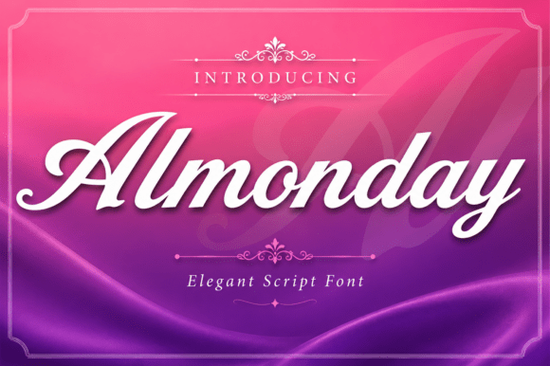
If you're looking for a script font that feels both timeless and modern, Almonday Font is a standout choice. It blends the graceful flow of traditional calligraphy with the clean energy of contemporary design perfect for projects where elegance matters. Whether you're crafting wedding invitations, designing a brand logo, or adding flair to packaging, this font brings a refined touch that feels personal and premium.
What makes Almonday Font special?
Almonday stands out because it’s not just another script typeface it’s thoughtfully designed with real hand-drawn charm. The sweeping strokes and delicate swashes give your text a natural rhythm, like ink flowing across paper. It’s ideal if you want your designs to feel warm, expressive, and high-end without relying on clipart or generic graphics.
The font includes a full range of weights and stylistic alternates, so you can customize each piece to match your vision. You’ll find subtle variations in loops and endings that let you create unique layouts, even within the same project. This flexibility makes it a favorite among designers who value control and detail.
Best uses for Almonday Font in real projects
- Wedding stationery: Use it for save-the-date cards, invitations, or thank-you notes. Its soft curves and elegant finish add a romantic, luxurious feel.
- Brand logos and business branding: Perfect for boutique shops, skincare lines, or artisanal brands that want to feel authentic and handmade.
- Print-on-demand products: Ideal for mugs, tote bags, or wall art where a handwritten look enhances the appeal.
- Headlines and social media graphics: Add personality to Instagram posts, newsletters, or blog headers with a touch of sophistication.
You’ll notice how the font holds up beautifully at different sizes from small details to large banners without losing clarity or character.
How does Almonday compare to other script fonts?
If you’ve explored similar options like Alluna Font, Summer Love Font, or Hiragenda Font, you’ll see that Almonday offers something distinct: a balance between strength and softness. While some script fonts lean too much toward casual or playful tones, Almonday maintains a poised, professional presence.
It’s also more versatile than many fonts in its category. You can use it for both formal and creative projects without feeling like you’re stretching the style. For example, it works well in minimalist designs as easily as in richly layered layouts.
Why designers choose Almonday over others
Another plus? It’s easy to pair with other typefaces. Try combining it with a simple sans-serif like Open Sans or Lato for contrast, or layer it with a serif for a classic look. The result feels intentional, not random.
For those exploring script fonts, Almonday Font is worth checking out especially if you want a high-quality option that doesn’t require extensive tweaking.
Final thoughts: Is Almonday right for your next project?
If you’re drawn to fonts that feel handcrafted yet polished, Almonday fits naturally into your workflow. It’s not flashy, but it’s memorable. It doesn’t shout but it commands attention through subtlety and grace.